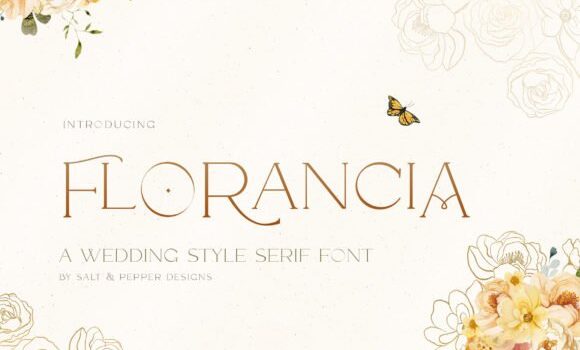
florancia
Florancia Font – Free Download Introduction to Florancia Font Florancia is a dainty and elegant serif font. 📸 Preview Gallery 6 images 📌 Product Name Florancia Font 👤 Author Salt and Pepper Fonts 📂 Category Explore ⬇️ Download Florancia Font